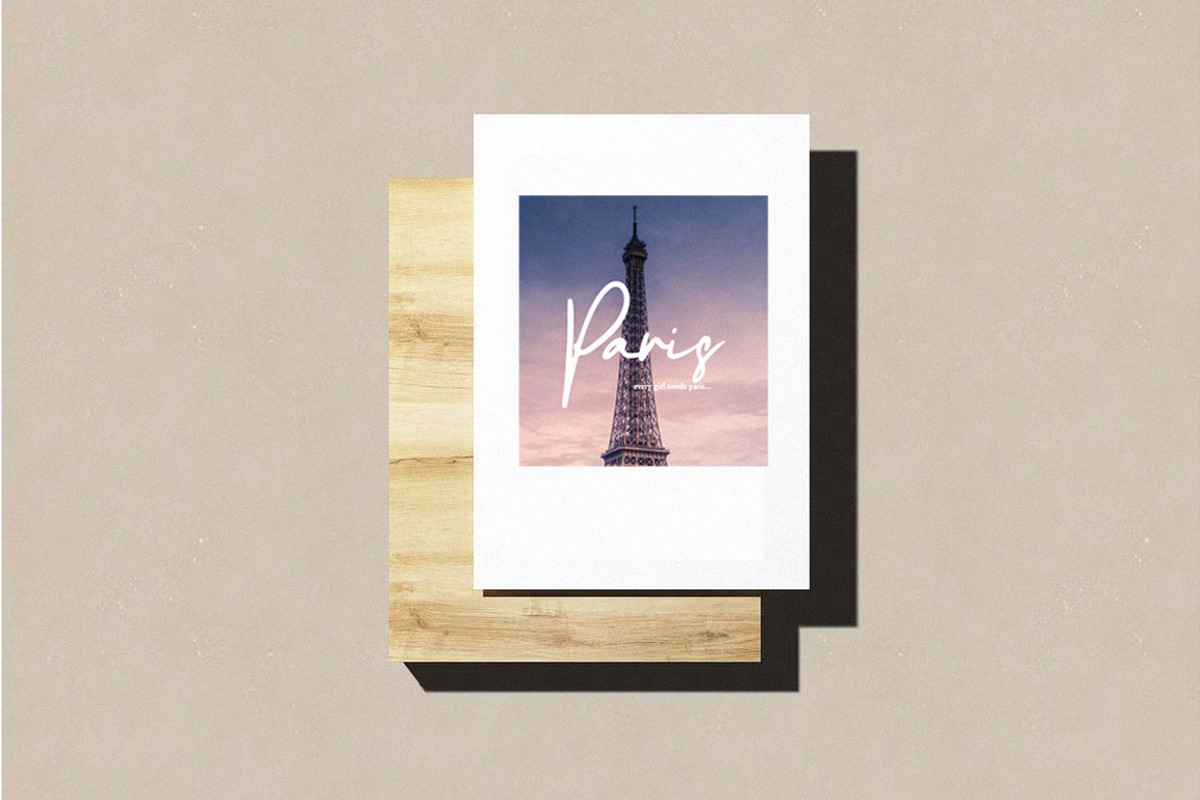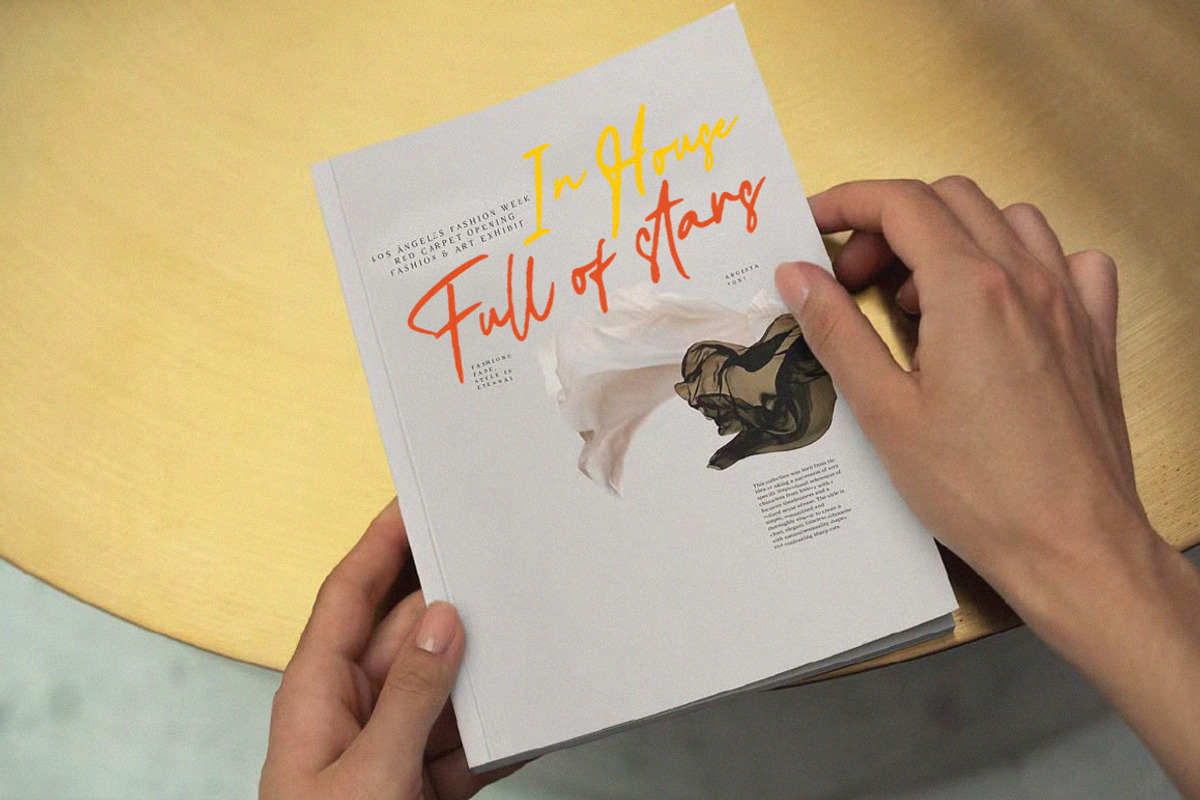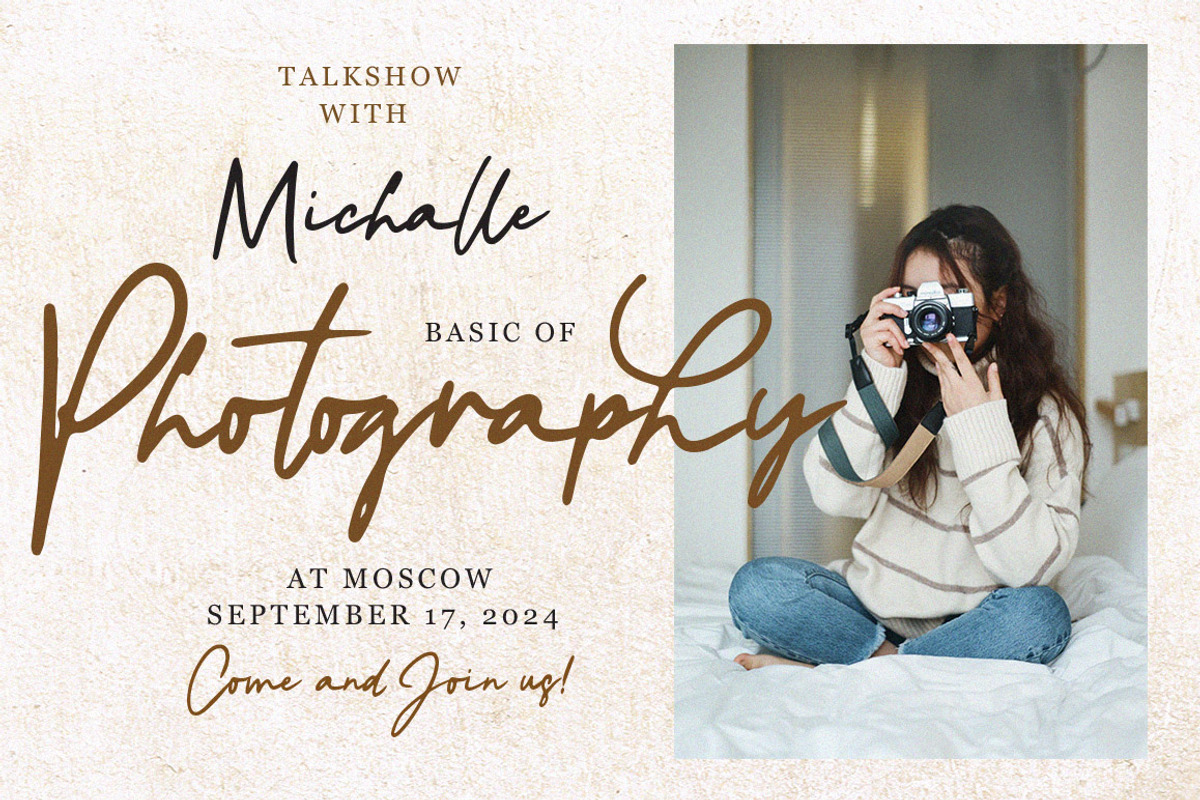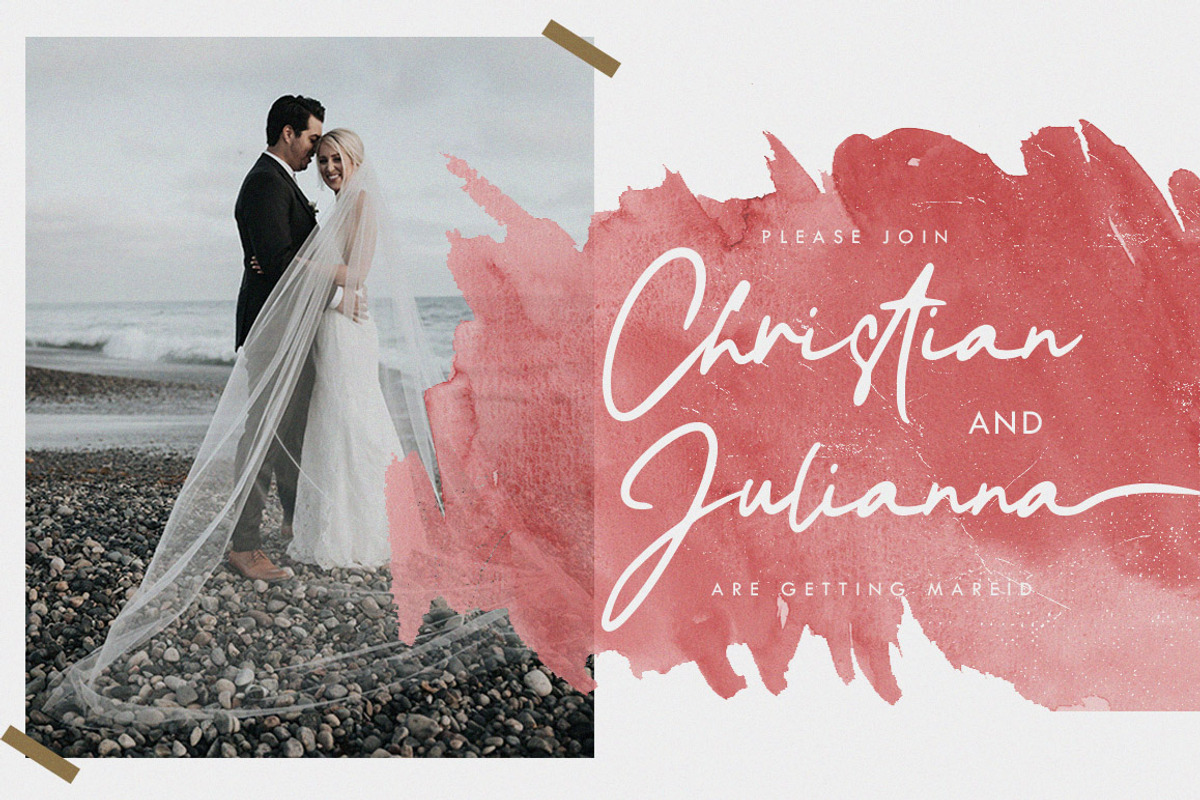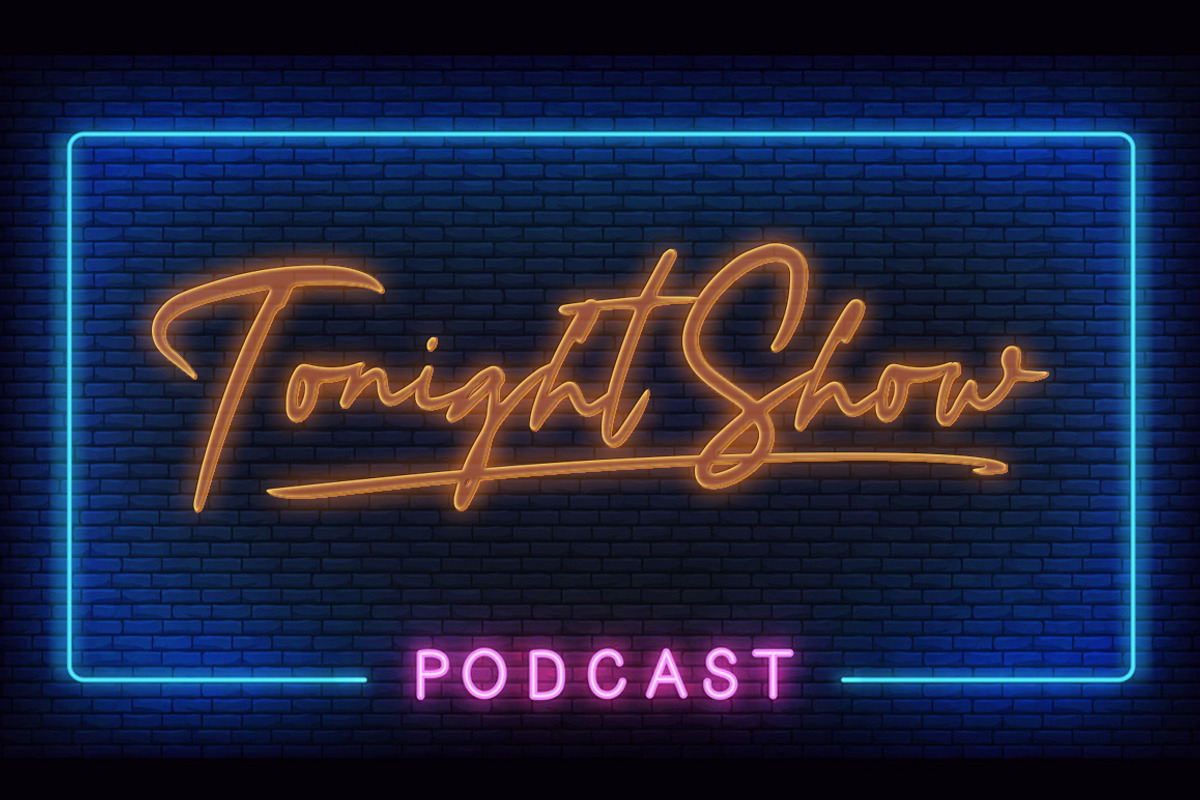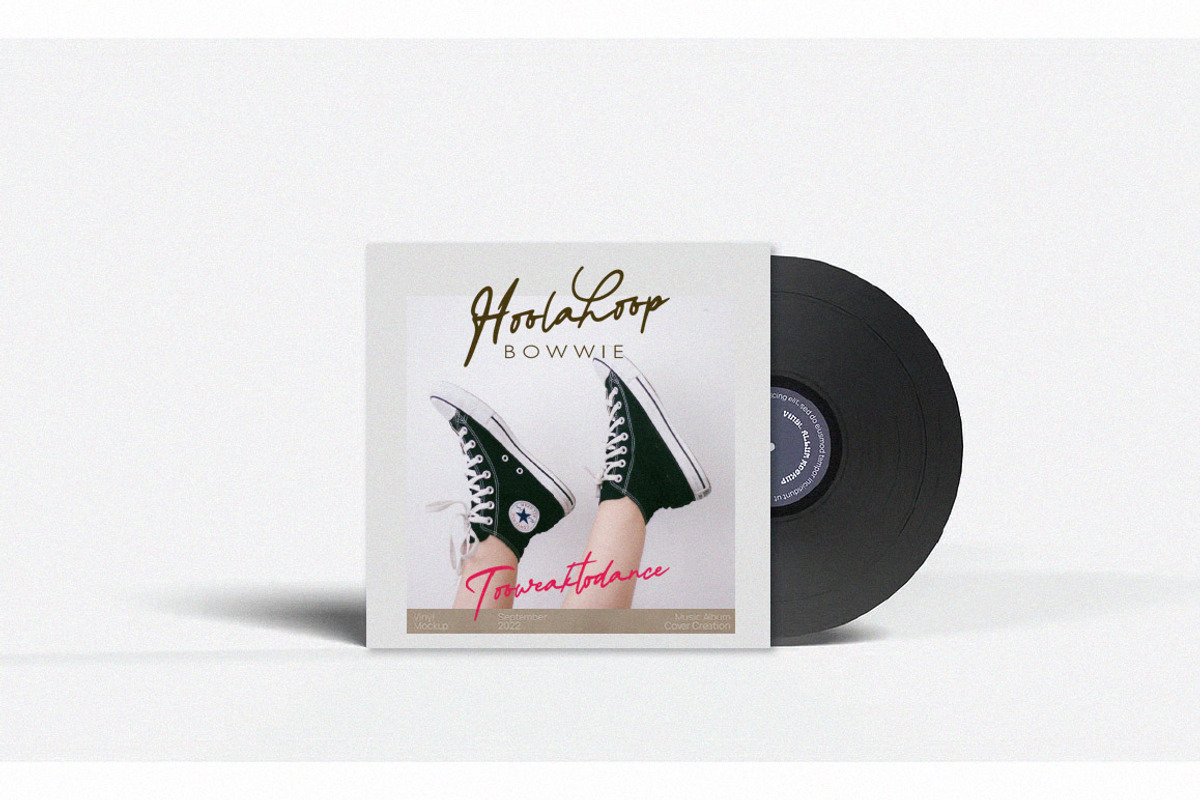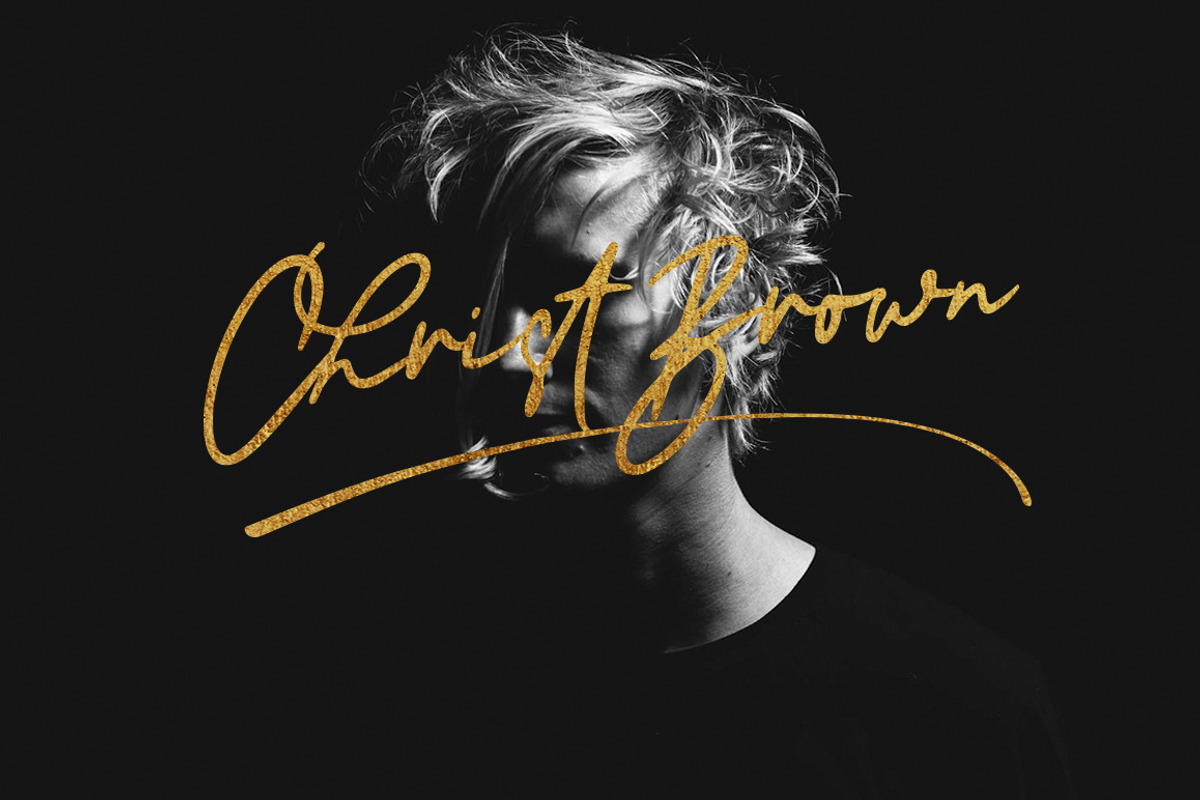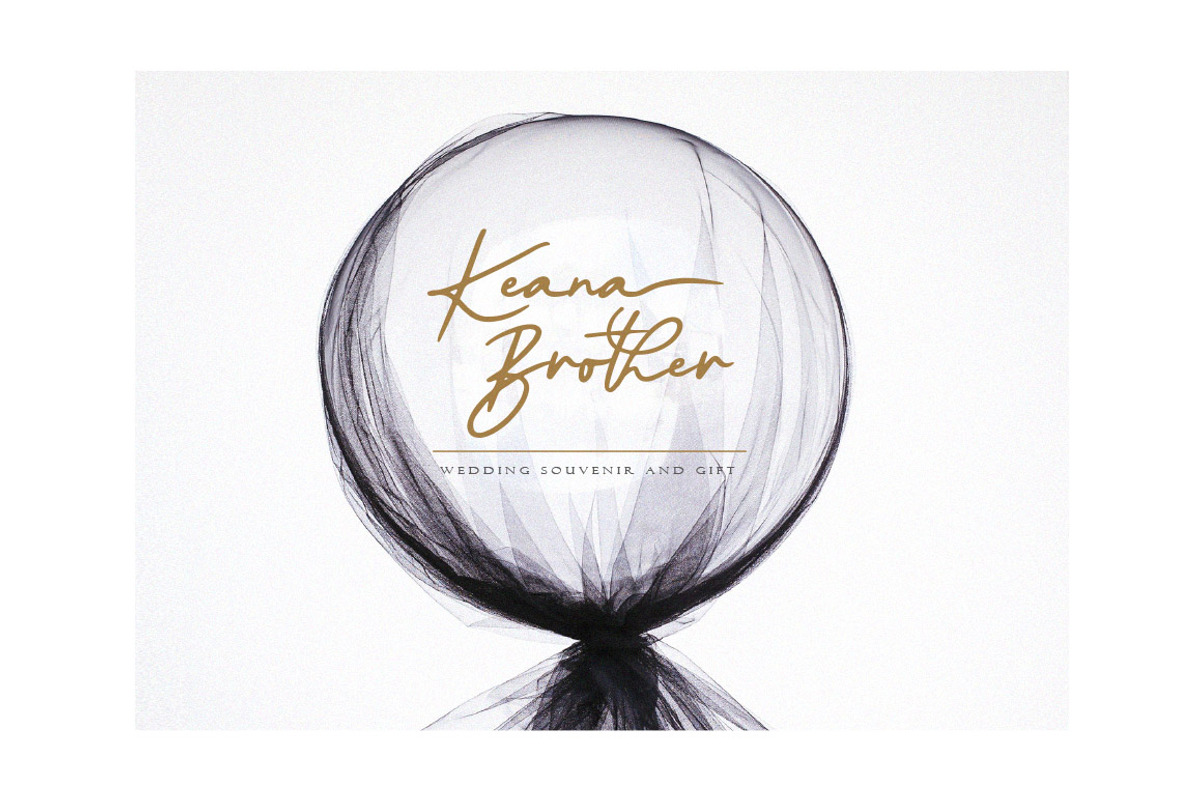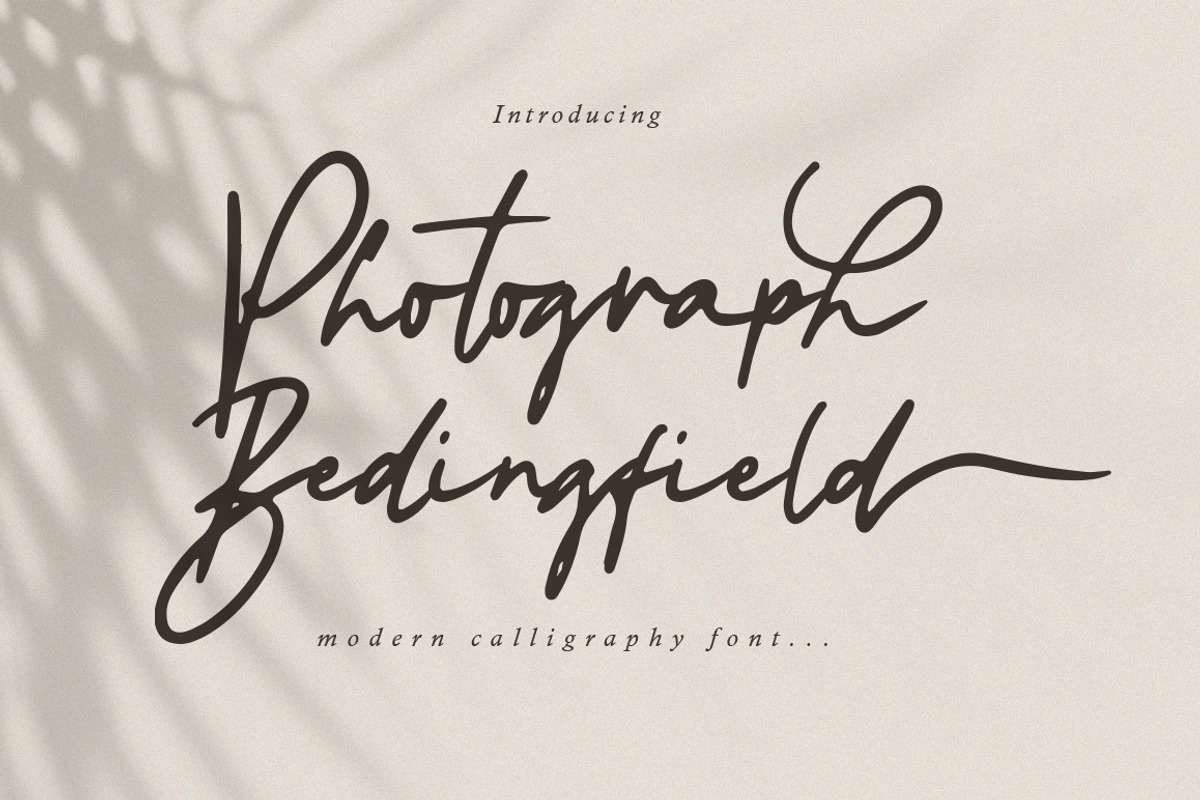
Photograph Bedingfield - Calligraphy
Photograph Bedingfield is a beautiful and elegant new calligraphy font with a natural and modern flow to the signature script. This typeface is crafted and designed to look as close to natural writing as possible for signature logos.
Photograph Bedingfield includes a full set of uppercase and lowercase letters, numbers, various punctuation marks, ligatures, and stylized alternates with swashes on the ends. All of the letters give a natural handwritten feel, this font is modern, simple, elegant yet original.
This font is perfect for branding, signatures, wedding invitations, logos, promotions, product packaging, social media designs, advertising, photography, watermarks, and other needs.